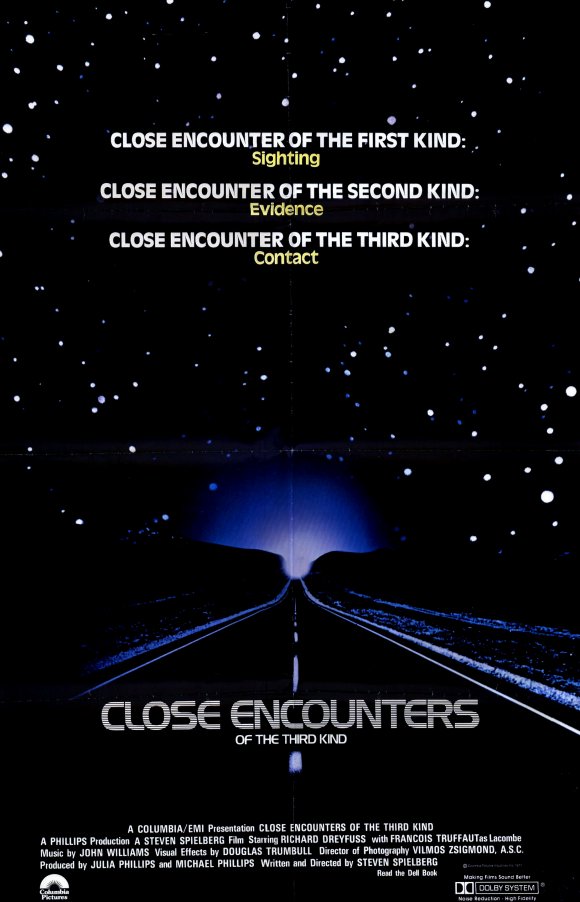
Close Encounters of the Third Kind Font
Fonts in UseClose Encounters of the Third Kind is a science fiction film directed by Steven Spielberg, released in 1977. The film follows Roy Neary, a lineman who becomes obsessed with UFOs after a close encounter, and ultimately joins a group of people who have also had similar experiences, leading to a climactic encounter with extraterrestrial beings.
The poster's title font resembles Handel Gothic, a geometric sans-serif typeface with a futuristic feel that was designed by Donald Handel. Meanwhile, the text "Sighting, Evidence, Contact" displayed above the title is set in Antique Olive.